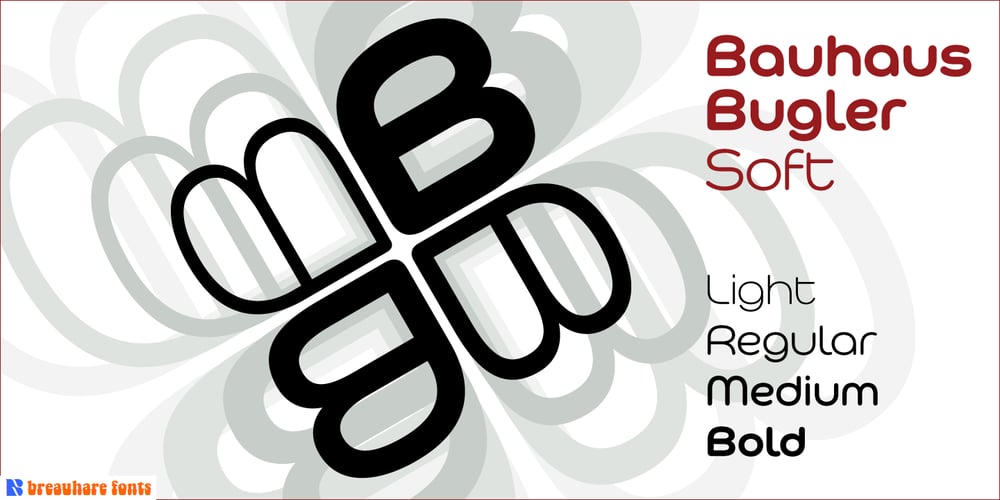
Bauhaus Bugler Soft Font Family was designed by Harry Warren and published by Breauhare. Bauhaus Bugler Soft contains 4 styles and family package options. Take Bauhaus Bugler, dip it in chocolate, and what do you get? Bauhaus Bugler Soft, of course! Or dip it in butter! You can achieve all sorts of yummy, appealing images with the softness of Bauhaus Bugler Soft, whether it be food, cosmetics, fabric softener, or any number of other fluffy things! Unlike its fellow Bugler fonts, Bauhaus Bugler Soft’s design never appeared in Harry Warren’s 6th grade class newsletter, The Broadwater Bugler, but its design came about during that same period in 1975. Because of this, it has been officially designated an honorary Bugler font! Its theme of broad curves that leap over and under conjure visions of fashion and high-end department stores with their dress boxes and shopping bags, plus hair products, cosmetics, couture, and other stylish personal merchandise of the highest caliber. Bauhaus Bugler Soft also has an art deco flavor, especially when all capitals are used. It comes with two alternate versions of the upper and lower Y to give users more freedom of choice. Put Bauhaus Bugler Soft in your “haus” today! Digitized by John Bomparte.